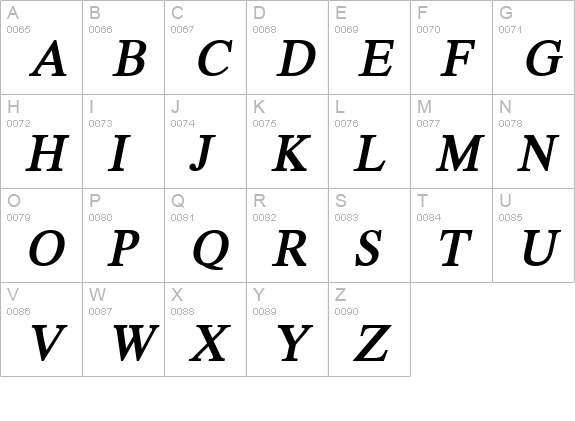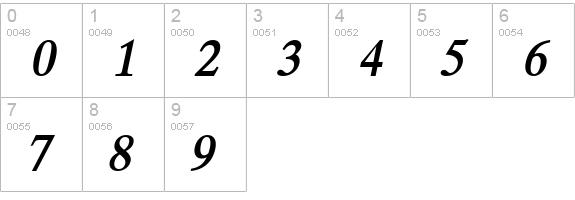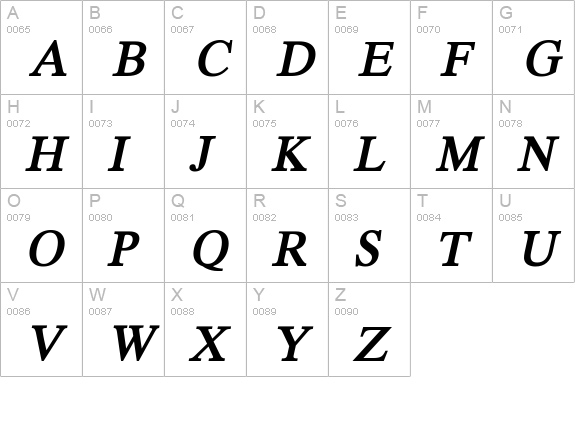
Duke Wide BoldItalic Font Details
Duke Wide BoldItalic is a distinctive, extended-width variant in the Duke typeface family \xE2\x80\x94 well suited to design and typography projects.
Introducing Duke Wide BoldItalic, a sleek and sophisticated font that exudes elegance and modernity. This unique typeface combines boldness with a touch of italic flair, making it perfect for adding a touch of sophistication to any design project. With its wide letterforms and bold strokes, Duke Wide BoldItalic commands attention and makes a strong statement. What makes Duke Wide BoldItalic even more appealing is that it is available for free download at FontsMarket.com. This means you can easily access and use this striking font in your projects without any cost. Whether you're designing a poster, logo, or website, Duke Wide BoldItalic will elevate your designs and leave a lasting impression. Don't miss out on the opportunity to enhance your projects with the distinctive style of Duke Wide BoldItalic. Download this font for free today at FontsMarket.com and take your designs to the next level.